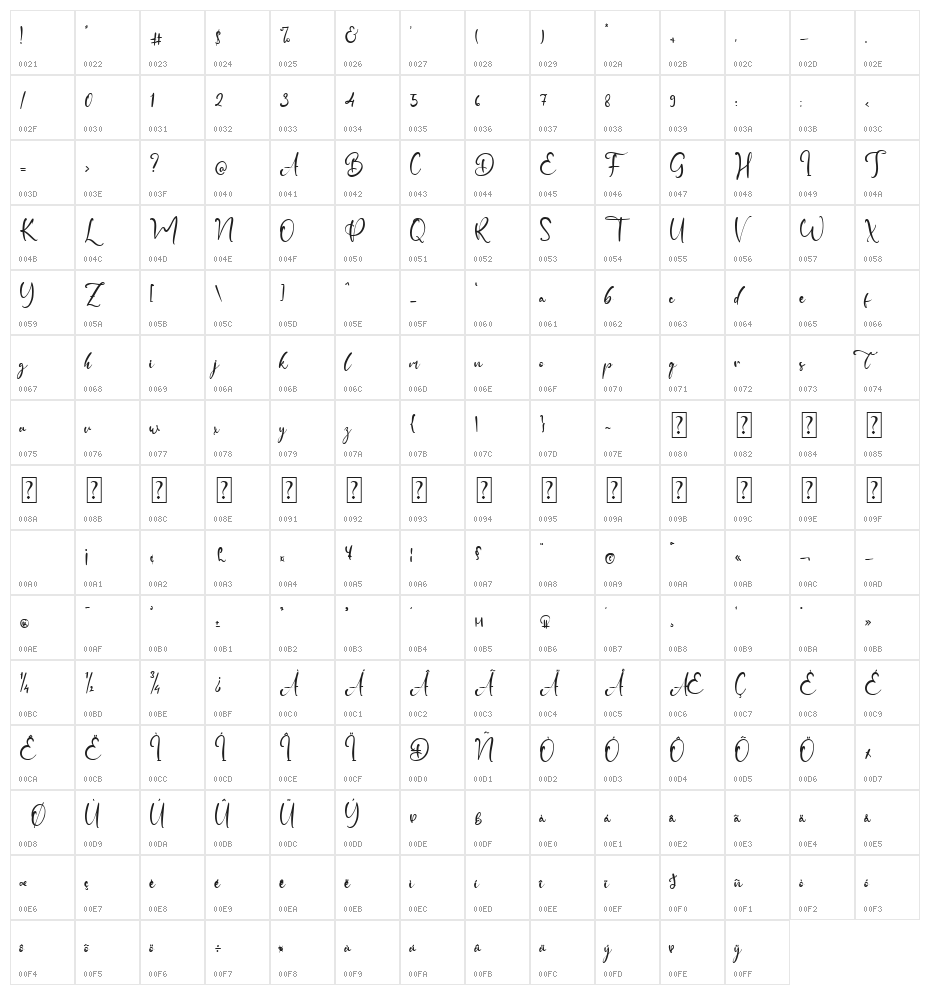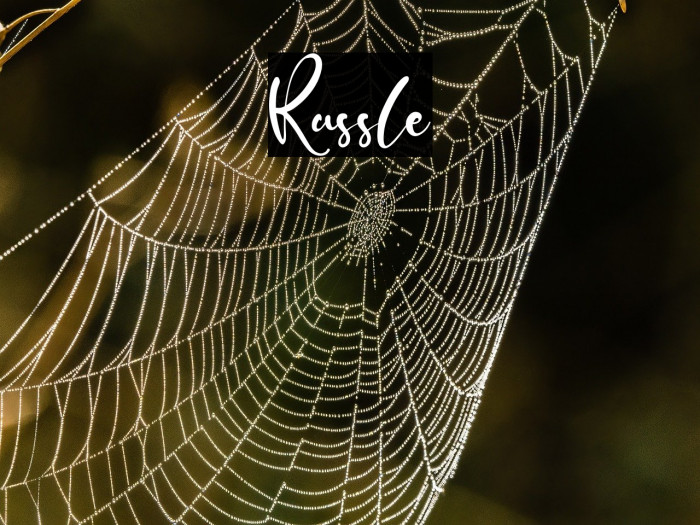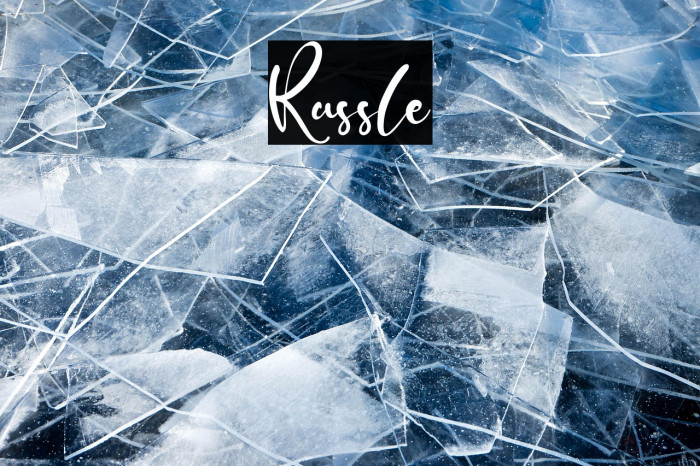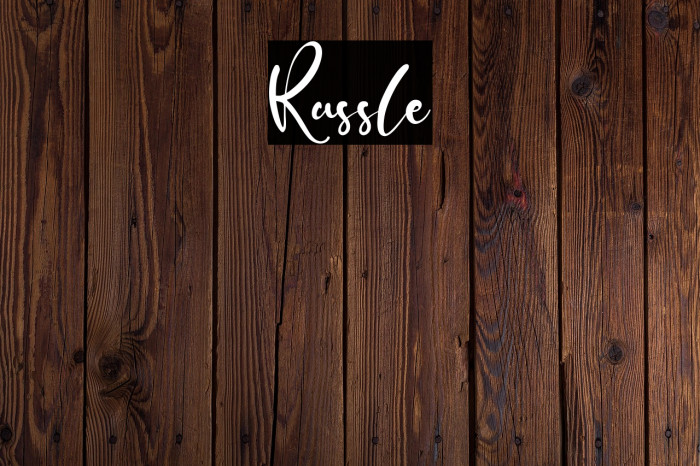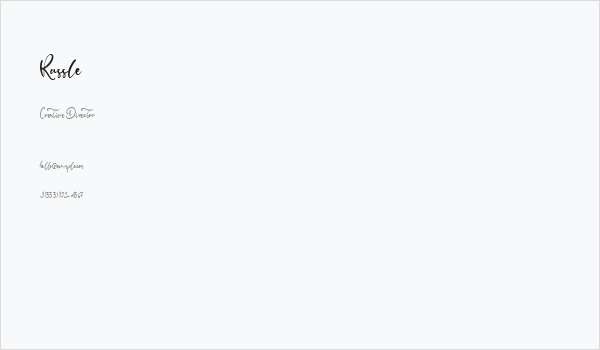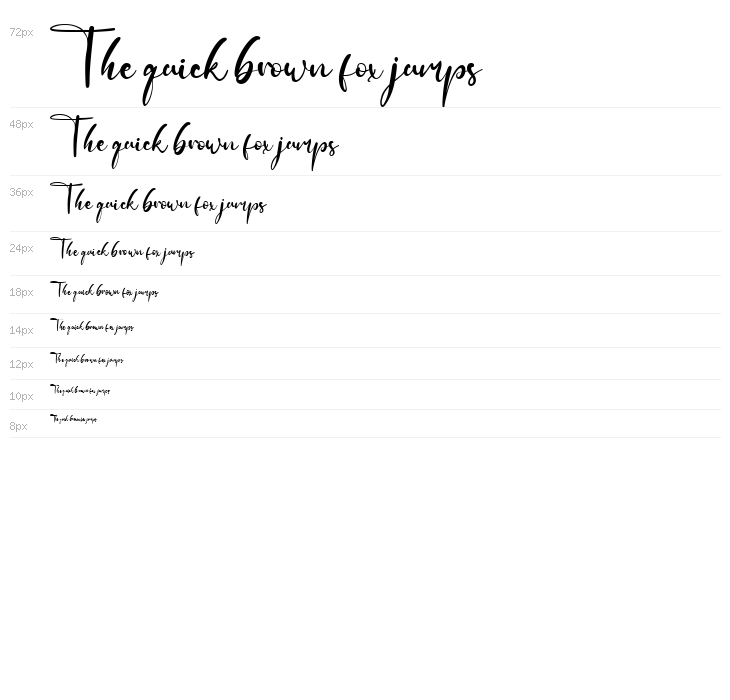
Russle Font
Russle Description
This font exudes a graceful and elegant script style, characterized by flowing, interconnected letters that mimic the fluidity of handwriting. The uppercase letters are ornate, with sweeping curves and loops that add a touch of sophistication. The lowercase letters maintain a consistent style, with smooth transitions and a slightly playful demeanor. The numerals are clear and maintain the script's elegance, while the special characters blend seamlessly into the overall design. This font's aesthetic is both classic and modern, making it versatile for various creative applications.
| Overall Style | Elegant, Classic |
| Use Case | Logos, Invitations, Greeting Cards |
| Proposed Projects | Ideal for wedding invitations, greeting cards, branding, and elegant logo designs. |